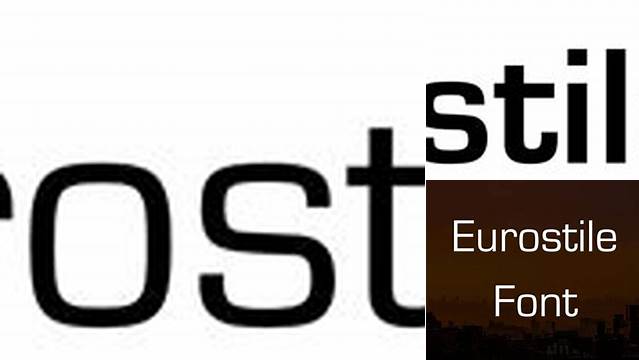
Hey everyone! Are you looking for the perfect font to make your designs pop? Well, look no further! Today, we're diving headfirst into the awesome world of the Eurostile Bold Italic font, and the best part? You can get it for free! This article will be your ultimate guide to finding, downloading, and using this fantastic typeface. We'll explore its history, its uses, and why it's a must-have for designers of all levels. So, buckle up, because we're about to embark on a font-tastic adventure! This is the ultimate guide to getting the Eurostile Bold Italic font free download you've been searching for. We'll cover everything from where to find it to how to use it effectively in your projects. Forget those boring fonts; it's time to elevate your designs with the stylish flair of Eurostile Bold Italic. Let's get started, shall we?
Understanding the Appeal of Eurostile Bold Italic
Guys, have you ever wondered what makes a font truly stand out? It's not just about the letters; it's about the personality it brings to your work. Eurostile Bold Italic is a font that screams confidence and sophistication. Its clean lines and slanted design offer a modern and dynamic feel, making it a favorite among graphic designers, advertisers, and anyone looking to make a bold statement. Unlike those bland, run-of-the-mill fonts, Eurostile Bold Italic has a unique charm. It's versatile, meaning you can use it for headlines, body text, or even in logos. The boldness ensures your message is clear, and the italic adds a touch of elegance and movement. In a world full of visual clutter, Eurostile Bold Italic cuts through the noise, grabbing the viewer's attention instantly. It's not just a font; it's a design tool. So, understanding why this font is so appealing is the first step to incorporating it into your design arsenal. The slanted nature gives a sense of energy, while the bold weight ensures readability even at smaller sizes. It's all about striking that perfect balance between style and function. It's the kind of font that can transform a simple design into something visually stunning and memorable. This is especially true when you consider that you can get this amazing font through a Eurostile Bold Italic font free download.
The History and Characteristics of Eurostile
Let's take a quick trip down memory lane, shall we? Eurostile, the parent font of our beloved Bold Italic, was born in the minds of Aldo Novarese, a renowned Italian designer, in 1962. Novarese was a master of geometric typefaces, and Eurostile is a prime example of his brilliant work. Originally created for the Nebiolo foundry, Eurostile quickly gained popularity because of its modern aesthetic and legibility. Now, let's talk about the characteristics. The font's defining features include its uniform stroke width and a geometric design. It's like a well-engineered piece of art, perfect in its simplicity. The bold and italic variants, as we know, take it a step further. The bold version adds extra weight, ensuring your text is noticeable. The italic version adds a slight slant, giving it a dynamic feel that's simply irresistible. And guess what? You can enjoy all these features when you get a Eurostile Bold Italic font free download. It's a true testament to Novarese's genius, a font that's stood the test of time. The uniform stroke ensures that the font looks cohesive and balanced. This design feature is what makes it so readable, whether it's on a billboard or a tiny screen. So, the next time you see a stunning piece of design, you might just be looking at the work of the incredible Eurostile. These are just some of the many reasons to seek out a Eurostile Bold Italic font free download. So, why wait?
Why Eurostile Bold Italic is Perfect for Your Projects
Alright, let's get down to the nitty-gritty. Why should you use Eurostile Bold Italic in your projects? The answer is simple: It's incredibly versatile! Whether you're designing a logo, crafting a website, or creating marketing materials, this font can elevate your work. It's the perfect choice for headlines that need to grab attention. Its bold weight and italic slant command immediate focus. It's equally at home in body text, offering excellent readability and a touch of sophistication. The font's modern aesthetic makes it ideal for brands looking to project a contemporary image. Think tech companies, fashion brands, and even educational institutions. The clean lines and geometric structure give your designs a professional and polished look. Want to make a statement? Use this font. Need to convey a sense of energy and dynamism? Use this font! And the best part? You can get it with a Eurostile Bold Italic font free download, making it accessible to everyone. It is like getting a secret weapon for your design arsenal. Its versatility allows you to create a cohesive and visually appealing brand identity across all your platforms. Whether it's a website, a brochure, or a social media post, the font can help you create a strong visual impact. This is why a Eurostile Bold Italic font free download is a must-have for any designer.
Conclusion: Embrace the Power of Eurostile Bold Italic
And there you have it, folks! We've covered everything you need to know about the Eurostile Bold Italic font, from finding it for free to unleashing its creative potential. This font is more than just a collection of letters; it's a powerful design tool that can transform your projects. Its bold, italic style brings a sense of energy, sophistication, and professionalism. With its clean lines and geometric structure, it's the perfect choice for making a statement. Whether you're a seasoned designer or just starting, the font is a must-have in your arsenal. So, don't wait! Go get your Eurostile Bold Italic font free download and start creating amazing designs today. Remember to follow the tips we've discussed. Experiment with colors, sizes, and pairings. Most importantly, have fun and let your creativity shine. The possibilities are endless. Happy designing, and we'll see you in the next font adventure!